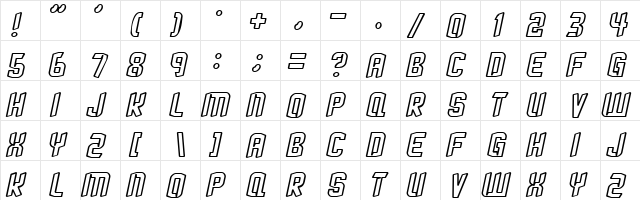
StrangePhenomena Outlined Regular
Design Context for StrangePhenomena Outlined Typeface
StrangePhenomena Outlined is built around its visual character rather than neutral utility — its distinctive forms are designed to make an impression at display sizes.
Font Pairing: Pair with a clean neutral sans-serif for body copy to let StrangePhenomena Outlined's character lead without overwhelming the composition.
Pro Tip: Use StrangePhenomena Outlined exclusively at display sizes — it was designed to be seen, not read at length. Let a neutral companion handle body copy.